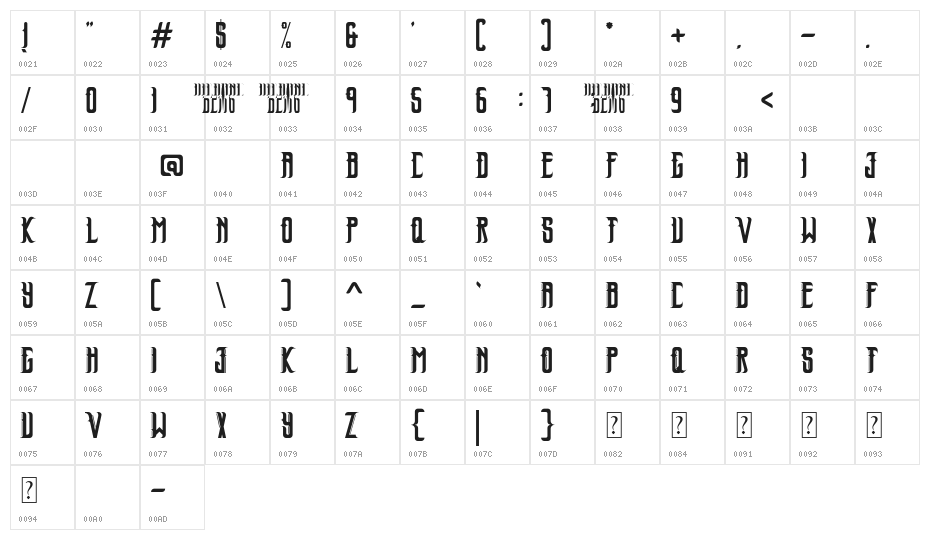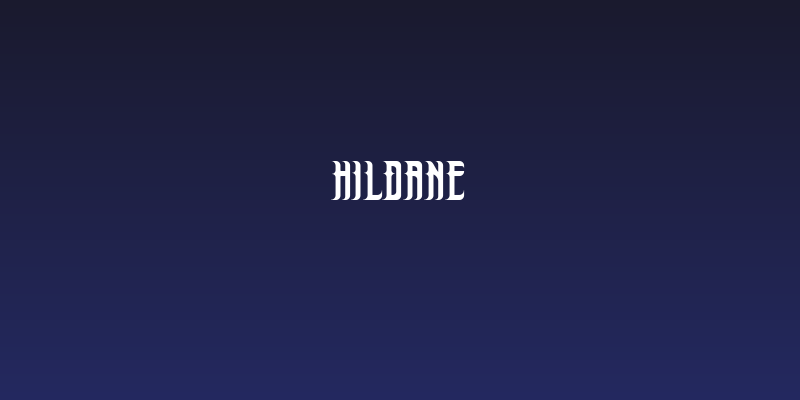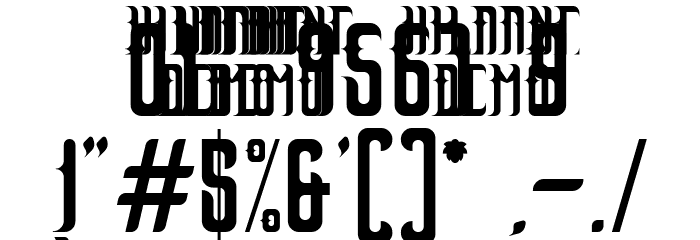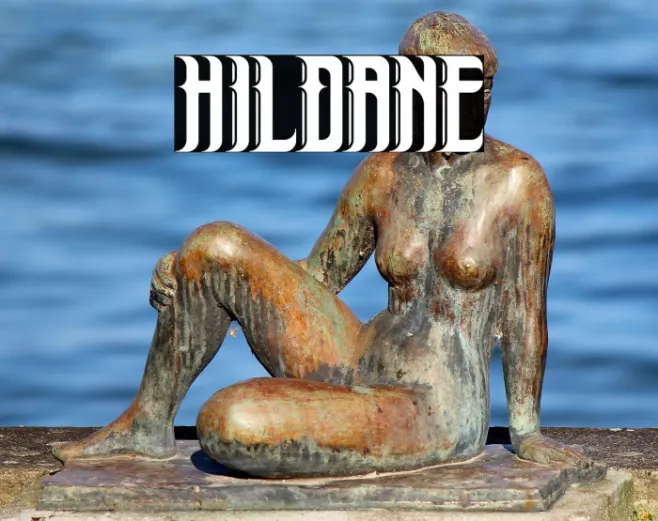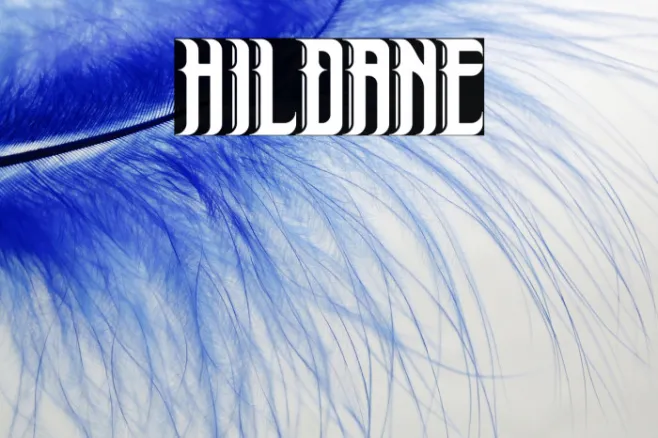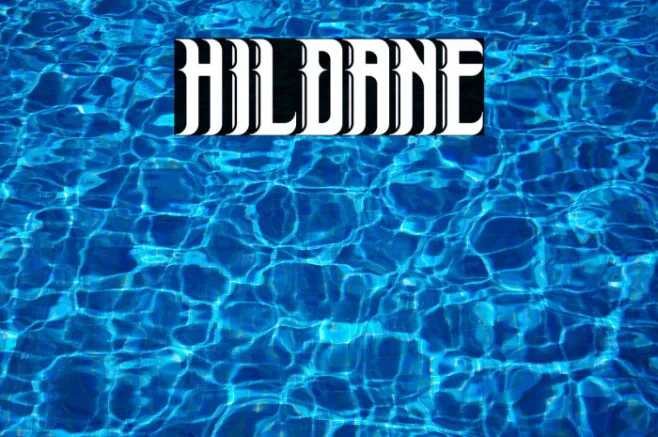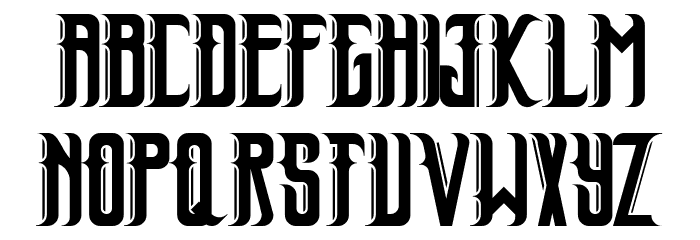
Hildane Font
Hildane Description
This font features a bold and striking design with a strong emphasis on vertical lines and sharp edges. The uppercase letters are tall and narrow, with distinct serifs that add a touch of elegance and drama. The lowercase letters maintain the same vertical emphasis, creating a cohesive look across all characters. Numbers and special characters follow the same stylistic cues, ensuring consistency throughout. The overall appearance is reminiscent of gothic or blackletter styles, yet it maintains a modern twist with its clean lines and structured form. This font is ideal for making a bold statement, capturing attention with its unique and powerful aesthetic.
| Overall Style | Modern Gothic |
| Proposed Projects | Ideal for branding, posters, album covers, and any project requiring a bold, dramatic impact. |